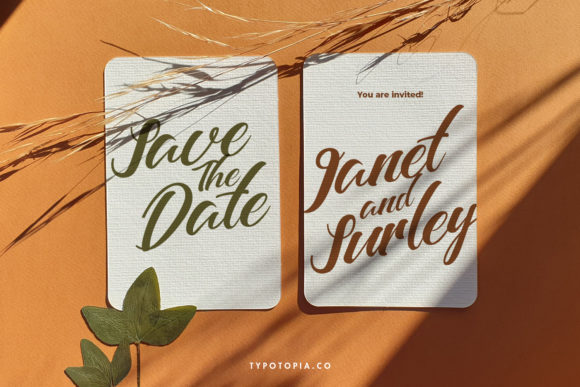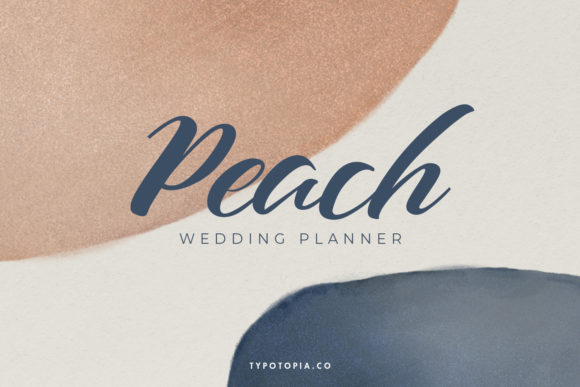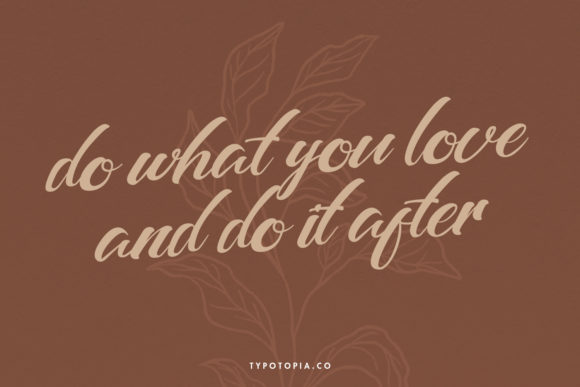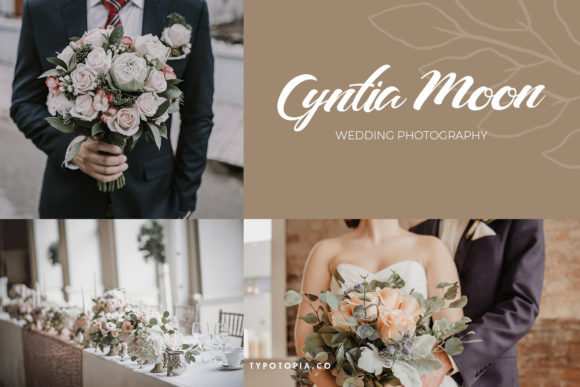
About Barcely Font
Barcely is a fancy, round lettered and delicate handwritten font. Smooth and flowing, this font is ideal for any romantic design you wish to create!